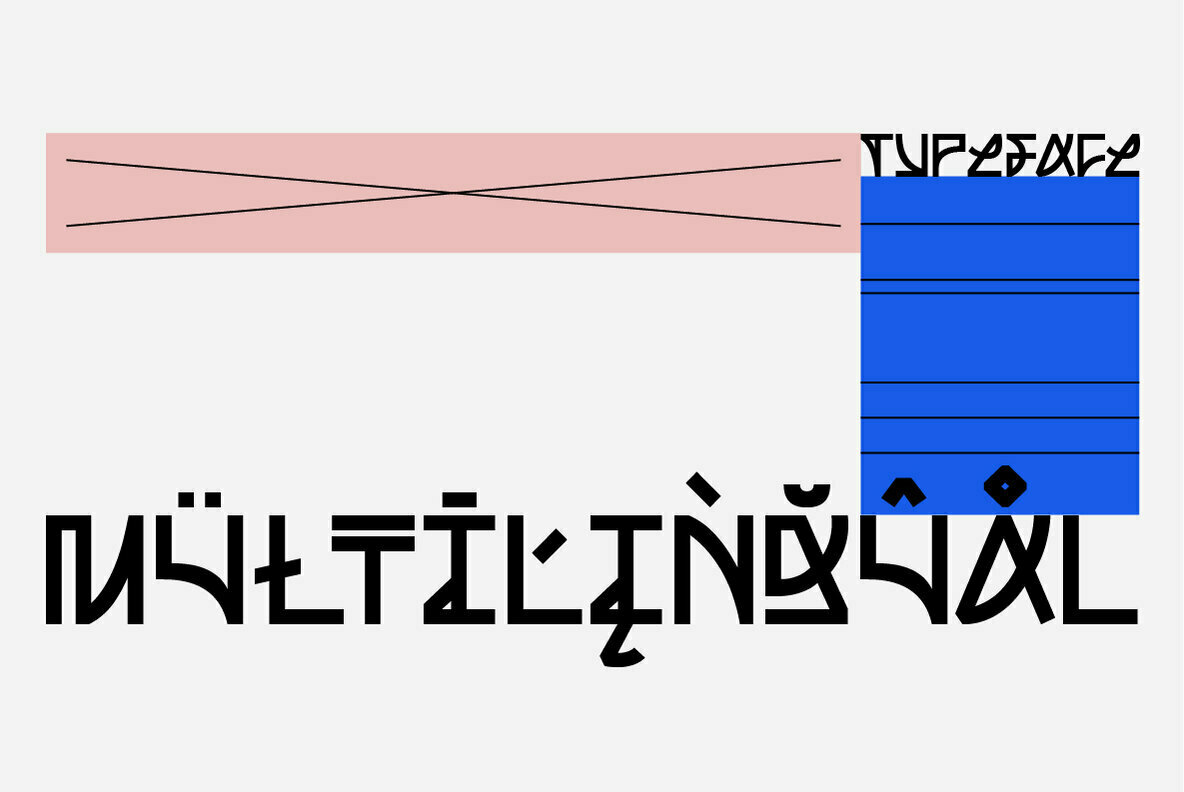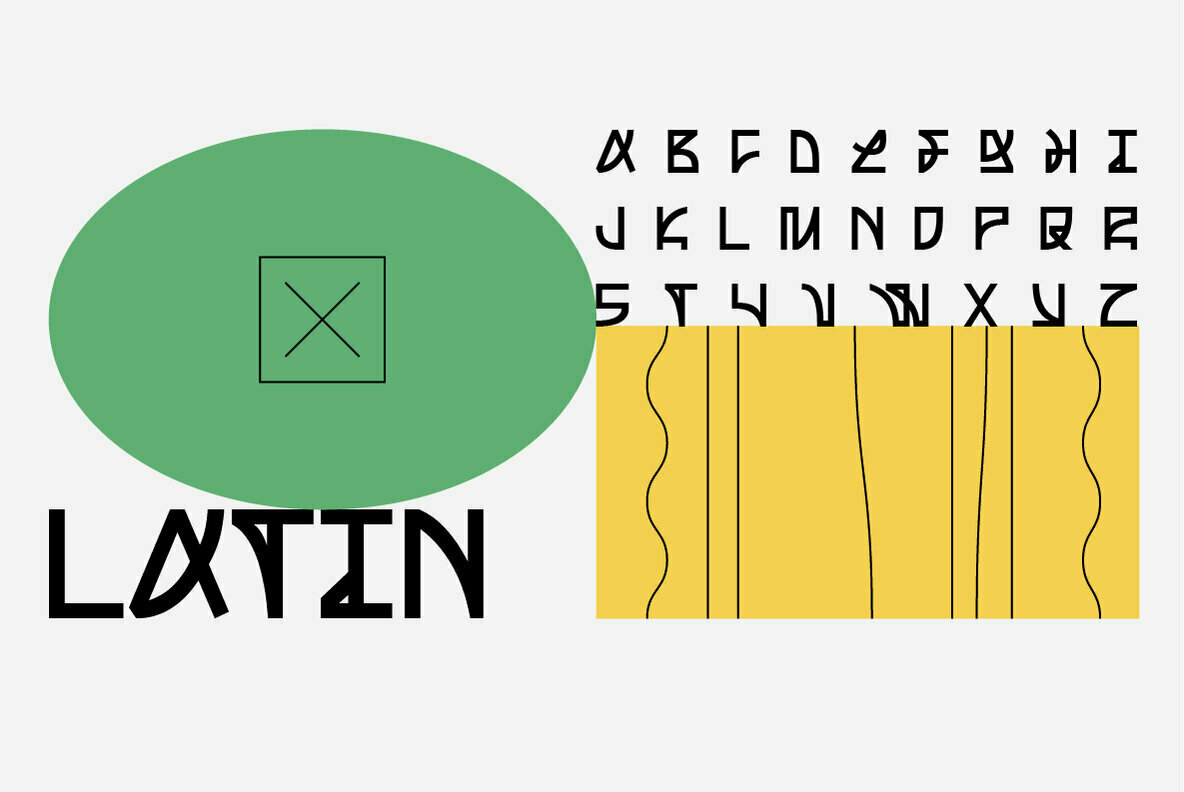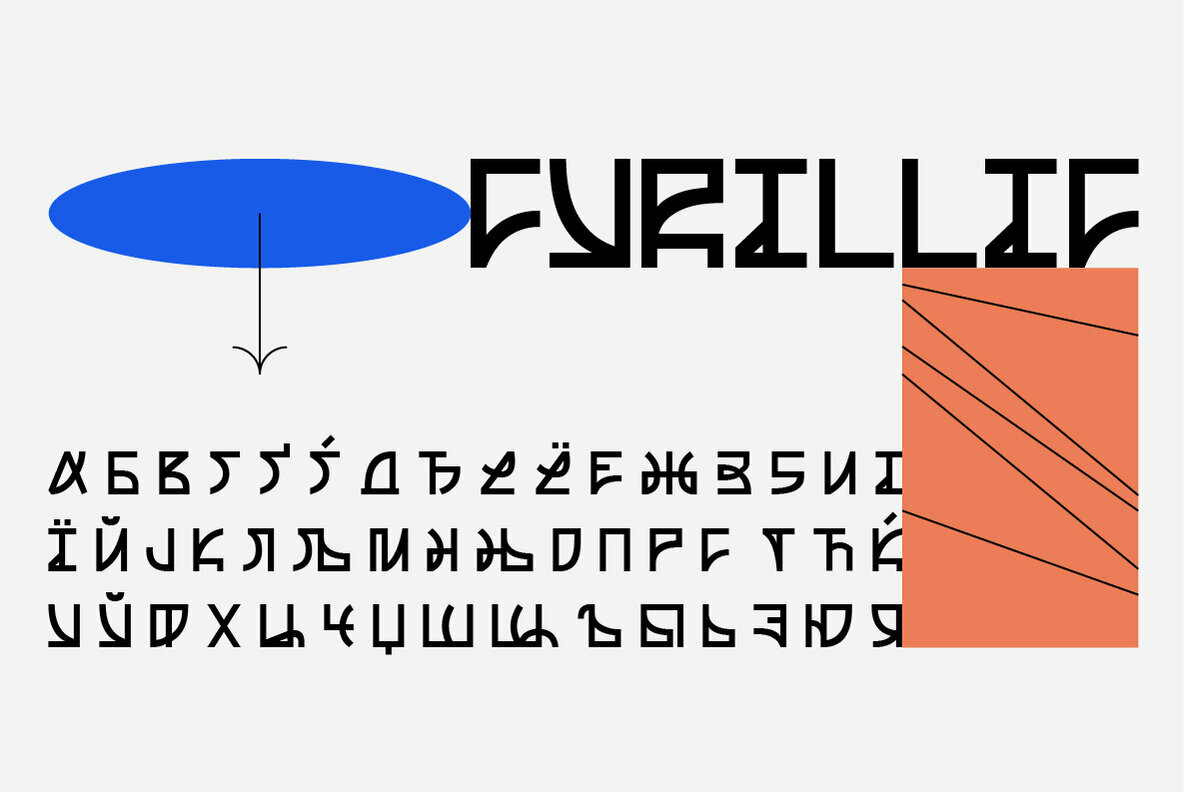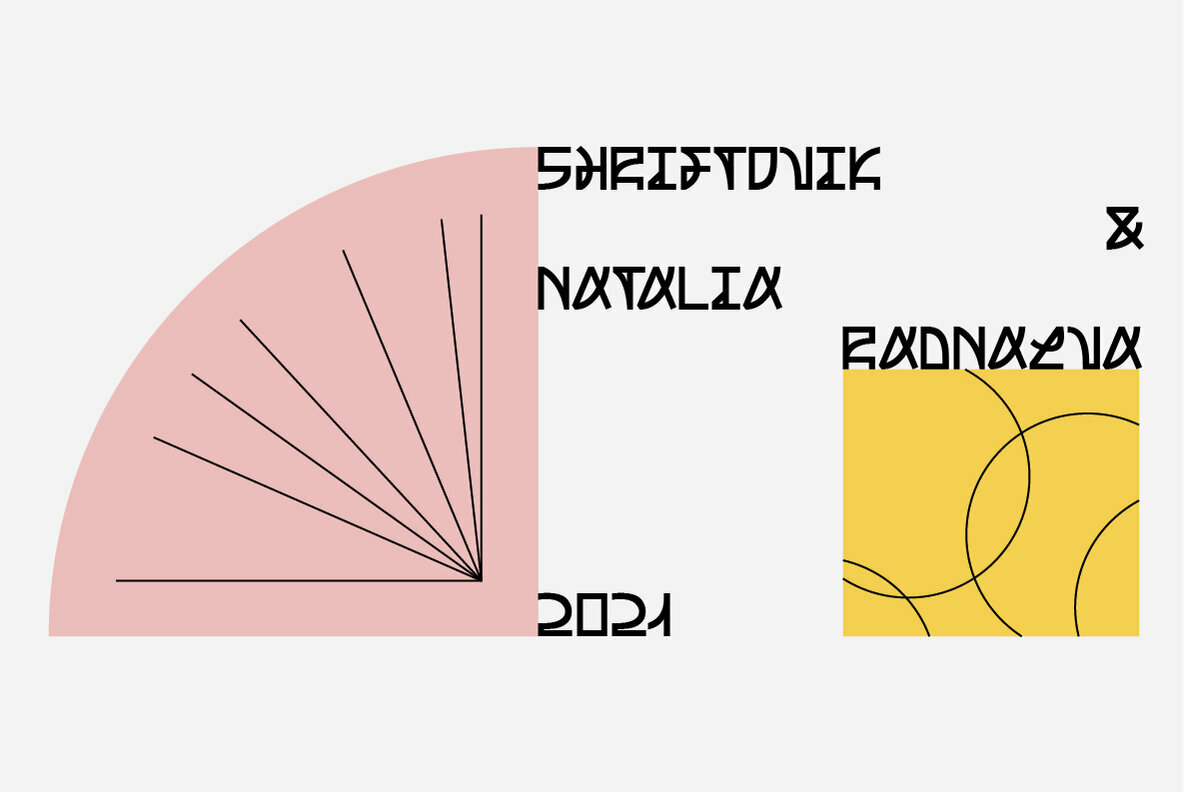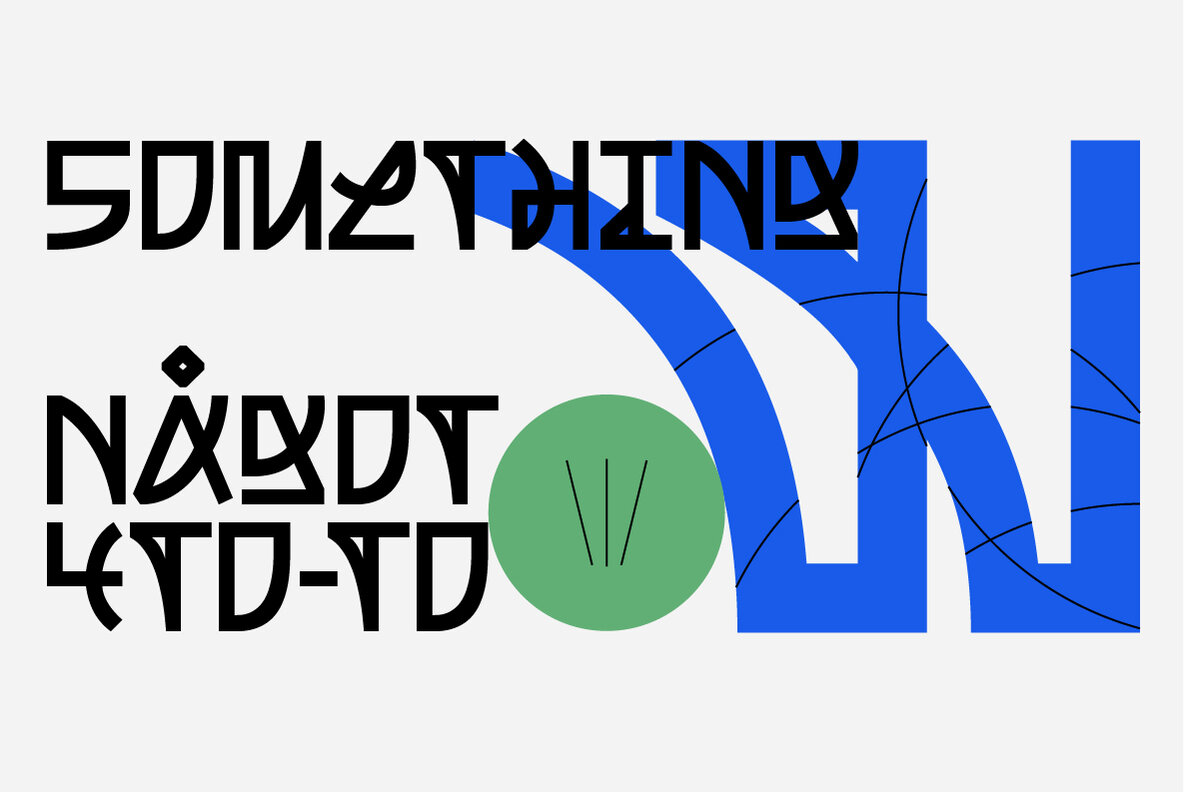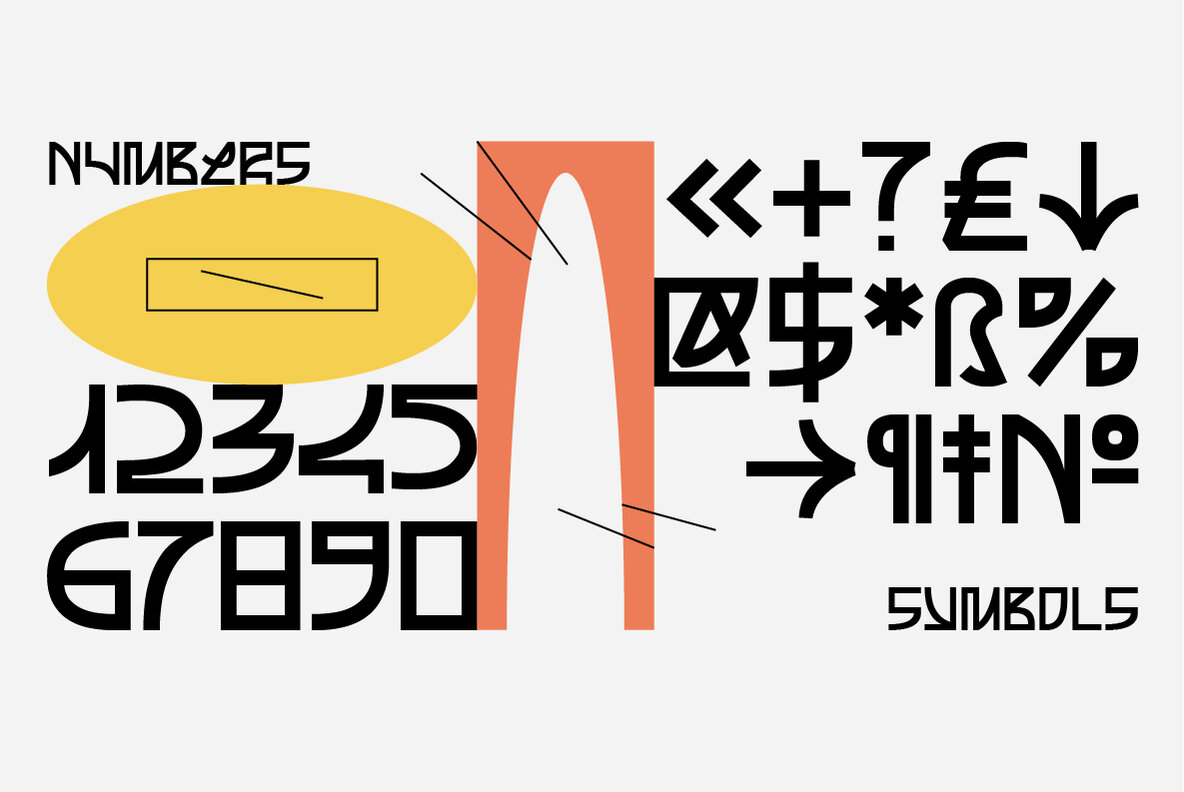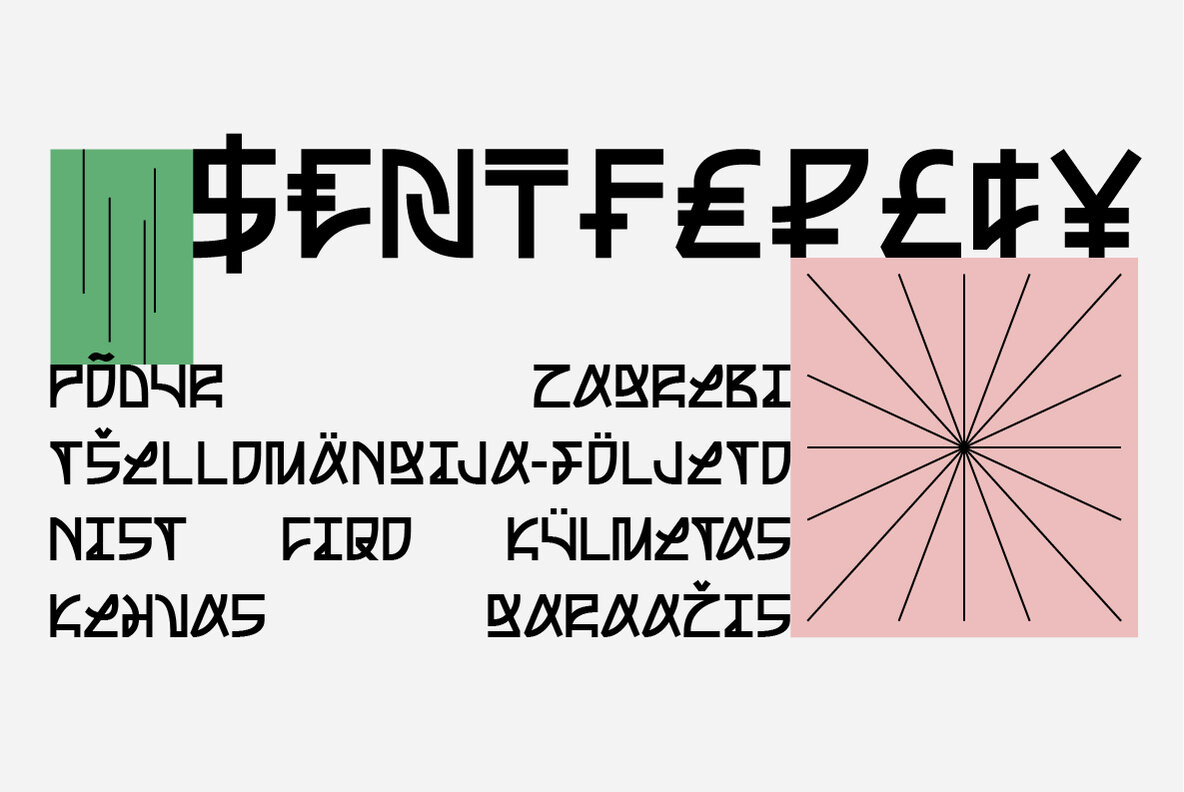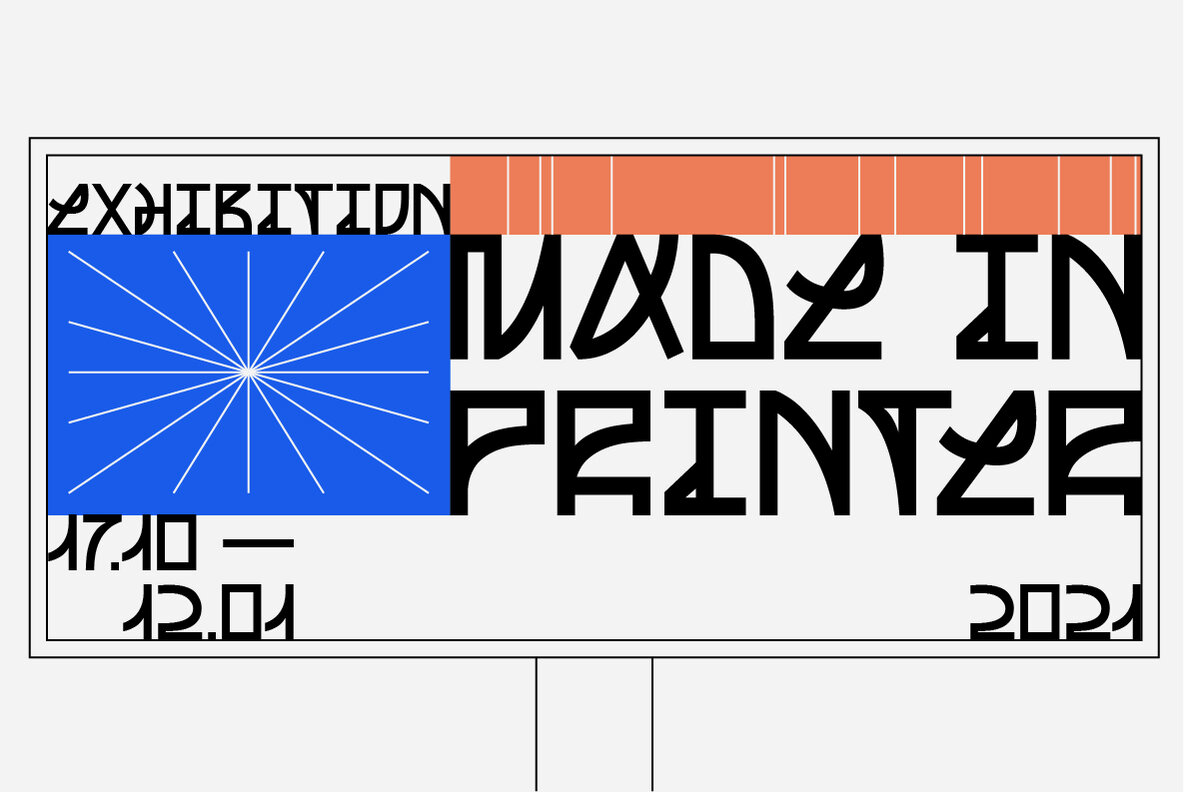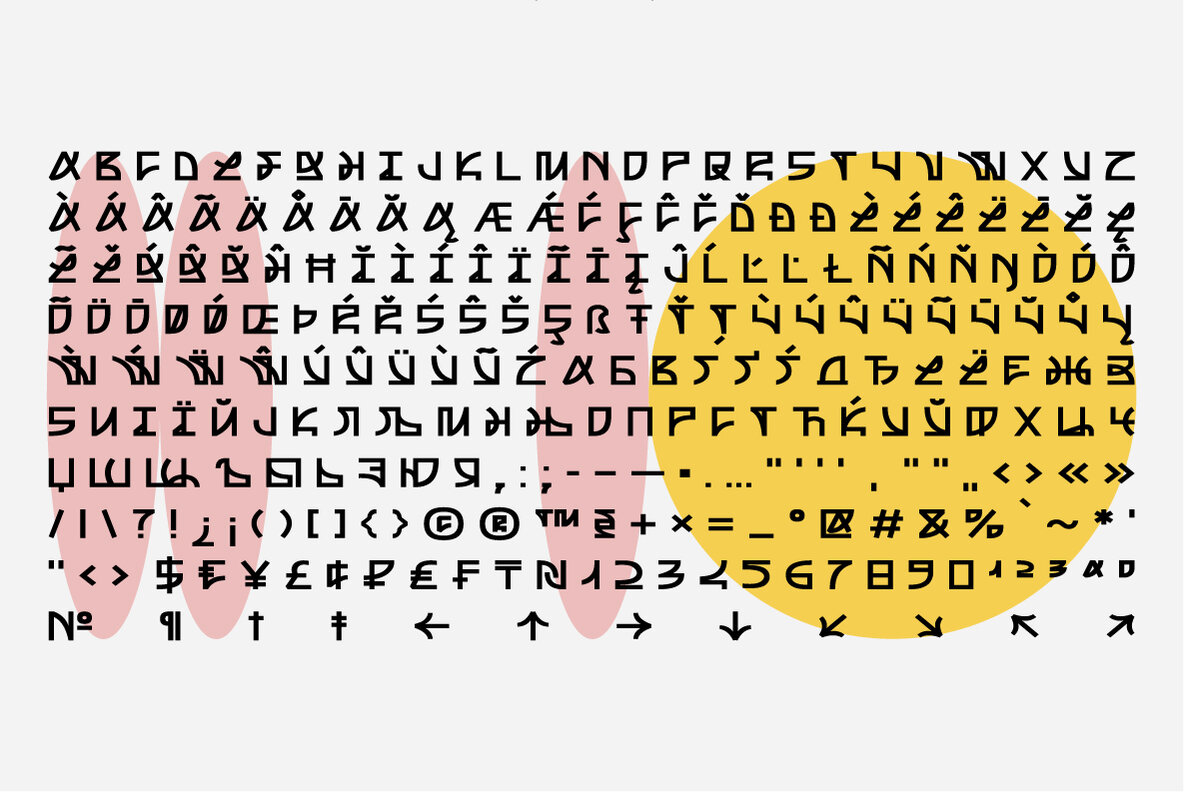
SK Nagot is a decorative typeface at the junction of industrial and classical graphic design. It is inspired by 3D printing technology that combines the reality we know with the future. The typeface is built on geometric shapes, which creates a unique appearance of the characters. Despite the apparent complexity of the font, it perfectly emphasizes various design solutions. SK Nagot supports the Latin Pro and Cyrillic Pro alphabet, which, coupled with an extensive character set, gives freedom for creative experiments.